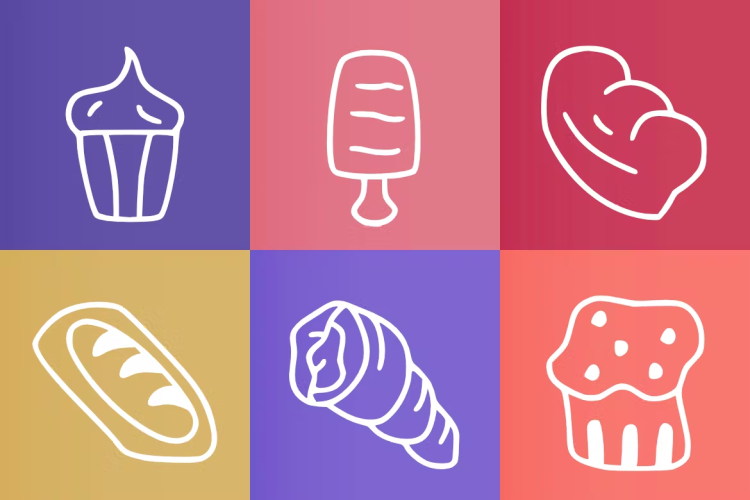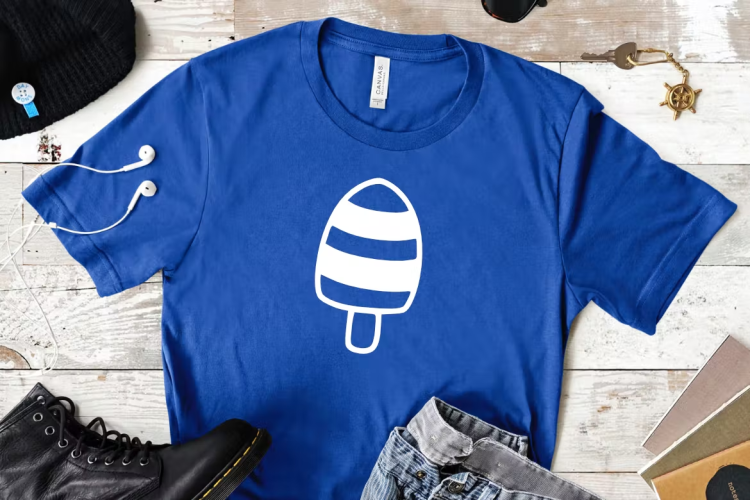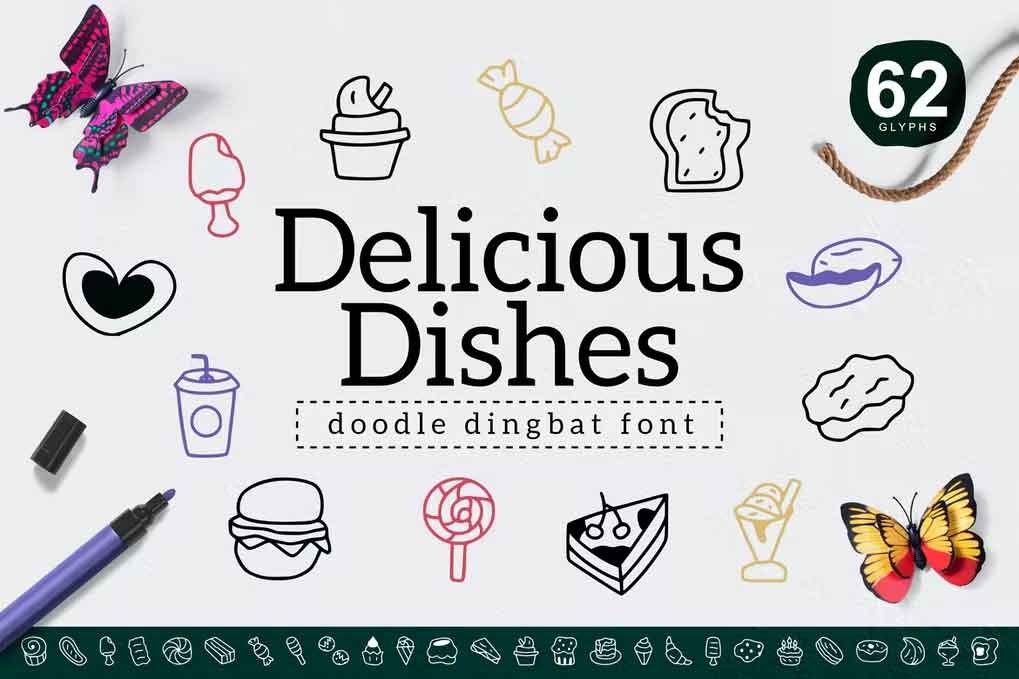
Delicious Dishes Dingbat Font
Delicious Dishes Dingbat
Simple Delicious Dishes doodle dingbat, suitable for many project, logo, ornament etc. Contain 62 symbols as the preview above.
Where Delicious Dishes Dingbat Font works best
Seasonal campaigns
Delicious Dishes Dingbat Font gives a holiday or themed promotion its own look without redrawing anything; use it for the headline only.
Party and family invitations
Decorative letters set the mood before the text is read. Pair Delicious Dishes Dingbat Font with a plain sans for the practical details.
Game and video titles
Themed lettering sells the world of a game or a channel in one frame.
What kind of work does Delicious Dishes Dingbat Font suit?
It sits in the Decorative Fonts group and reads as branding, decorative, decorative fonts, headlines. That makes it a candidate wherever those qualities help: headings, packaging, social graphics and brand work. Set it at the size you plan to use before deciding.